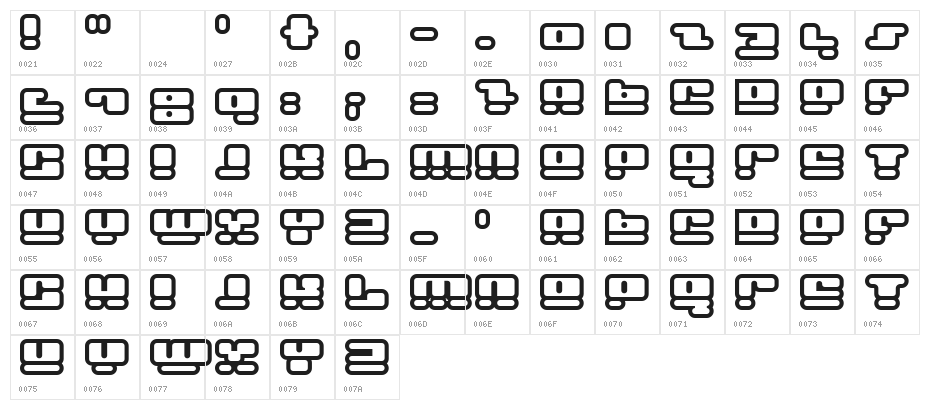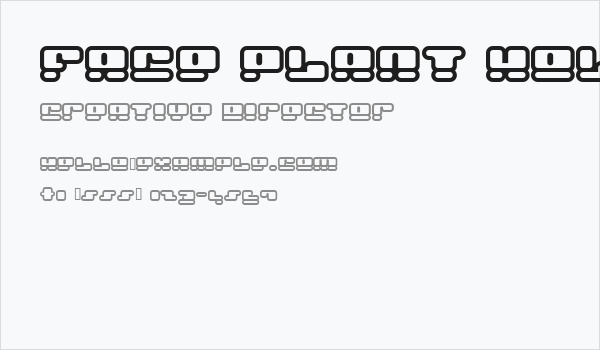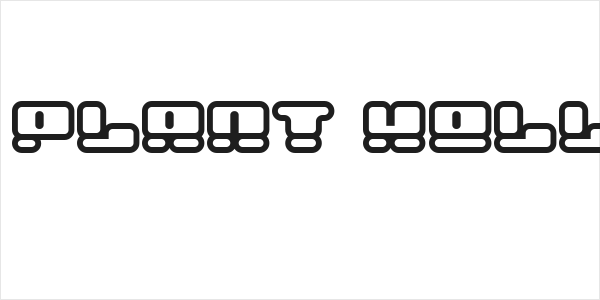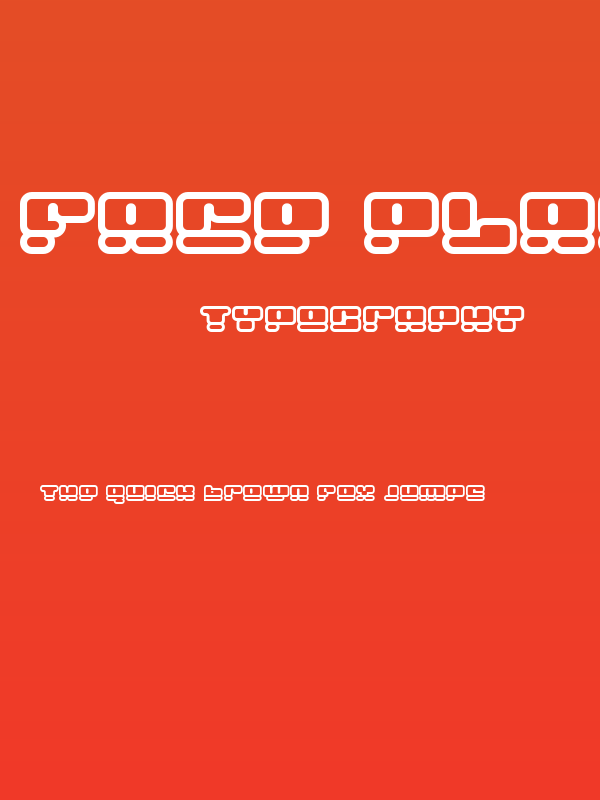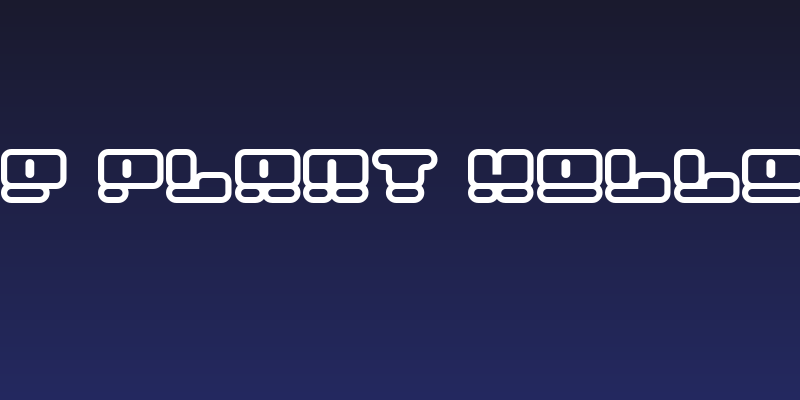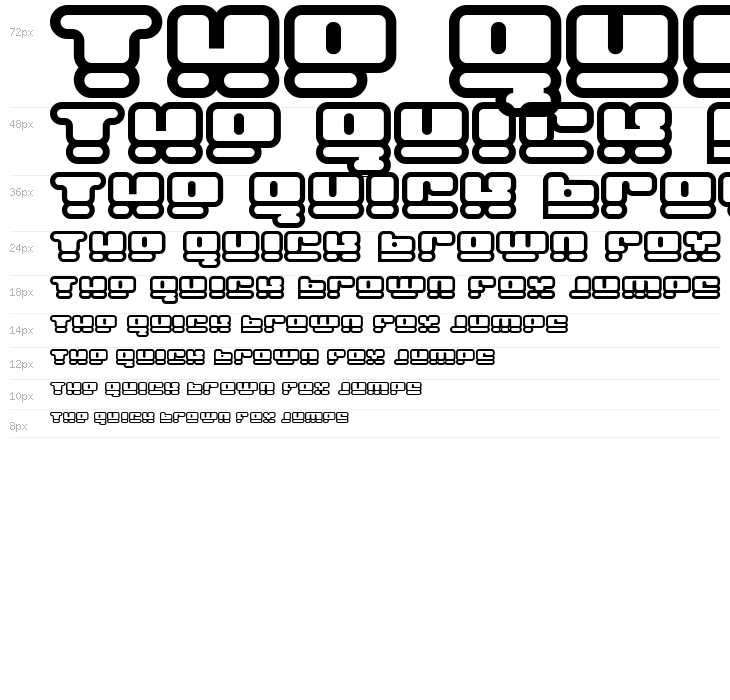
Face plant hollow 2 Font
Face plant hollow 2 Description
This font features a unique, hollow design with rounded edges and a geometric structure. Each character is outlined, creating a bold and eye-catching appearance. The letters are uniform in height, contributing to a cohesive look across the alphabet. The style is playful and modern, with a futuristic touch that makes it stand out. The characters are evenly spaced, providing a balanced and readable text. This font is ideal for creative projects that require a distinctive and memorable typeface.